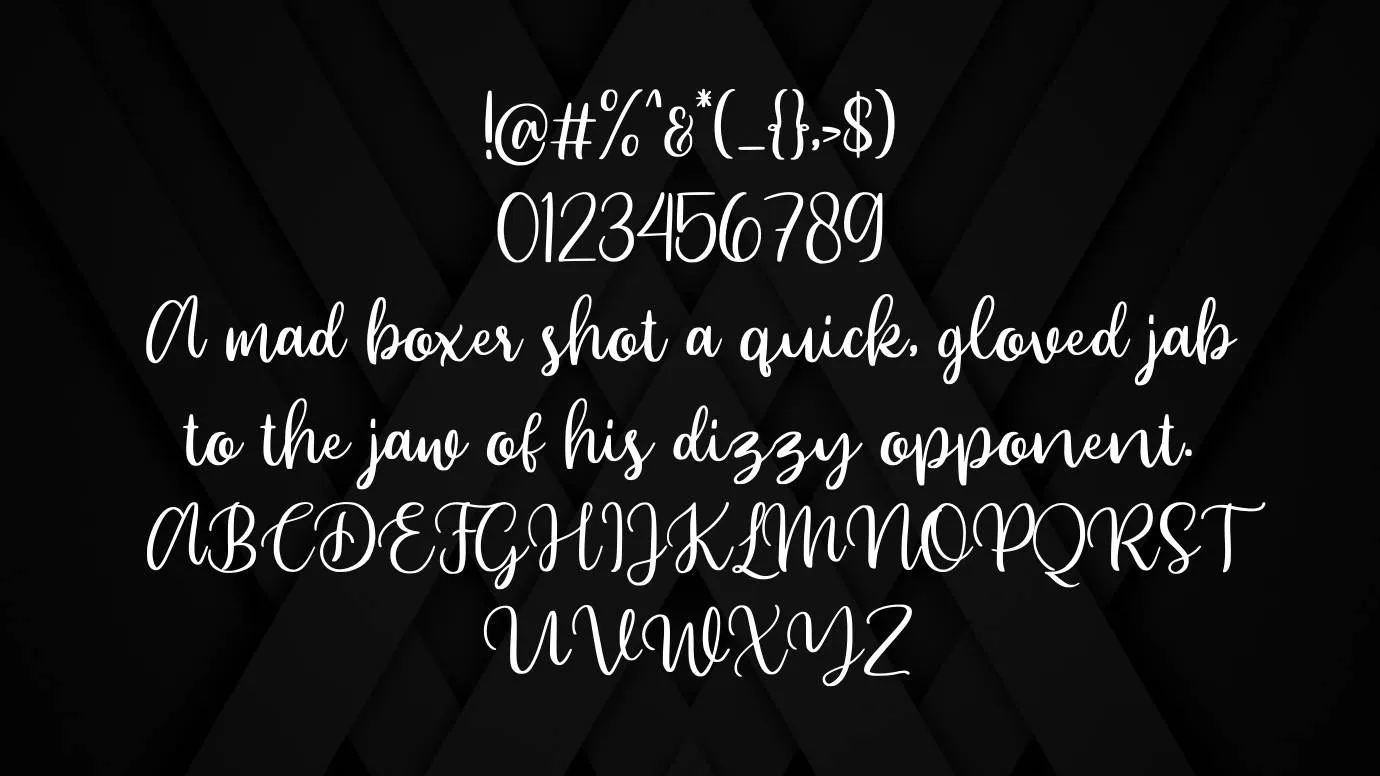
Today we are going to present one of the stylish calligraphy typefaces Beyonce Font that belongs to the script font family. It has a very delicate and elegant texture that will give you a premium look. It has been used by many celebrities in different quality projects. This has a very clean and smooth texture that gives a vintage look to your project.
This calligraphy-style font was designed by one of the talented graphic designers Sarah Robbaniyyah. This font was created with a modern and fashionable design carefully. It comes in capital letters, small letters, punctuations, symbols, digits, icons, and numbers.
View of Beyonce Font
Here is a picture of this Beyonce Font that belongs to the calligraphy font family. It has been used in different handwritten projects.
If we talk about its uses then you have to know that it has been used in many noticeable places. It has a handwritten style that is perfect for printing and displaying projects. Its curly design would be perfect for designing projects. It has been used by many famous designers in international projects.
| Name | Beyonce Font |
| Designer | Sarah Robbaniyyah |
What is the Beyonce Font?
It is one of the stylish calligraphy typefaces that belongs to the script font family. It comes in one regular style with amazing designs and wonderful weights.
Who designed the Beyonce Font?
This calligraphy-style font was designed by one of the talented graphic designers Sarah Robbaniyyah. This font was created with a modern and fashionable design carefully.